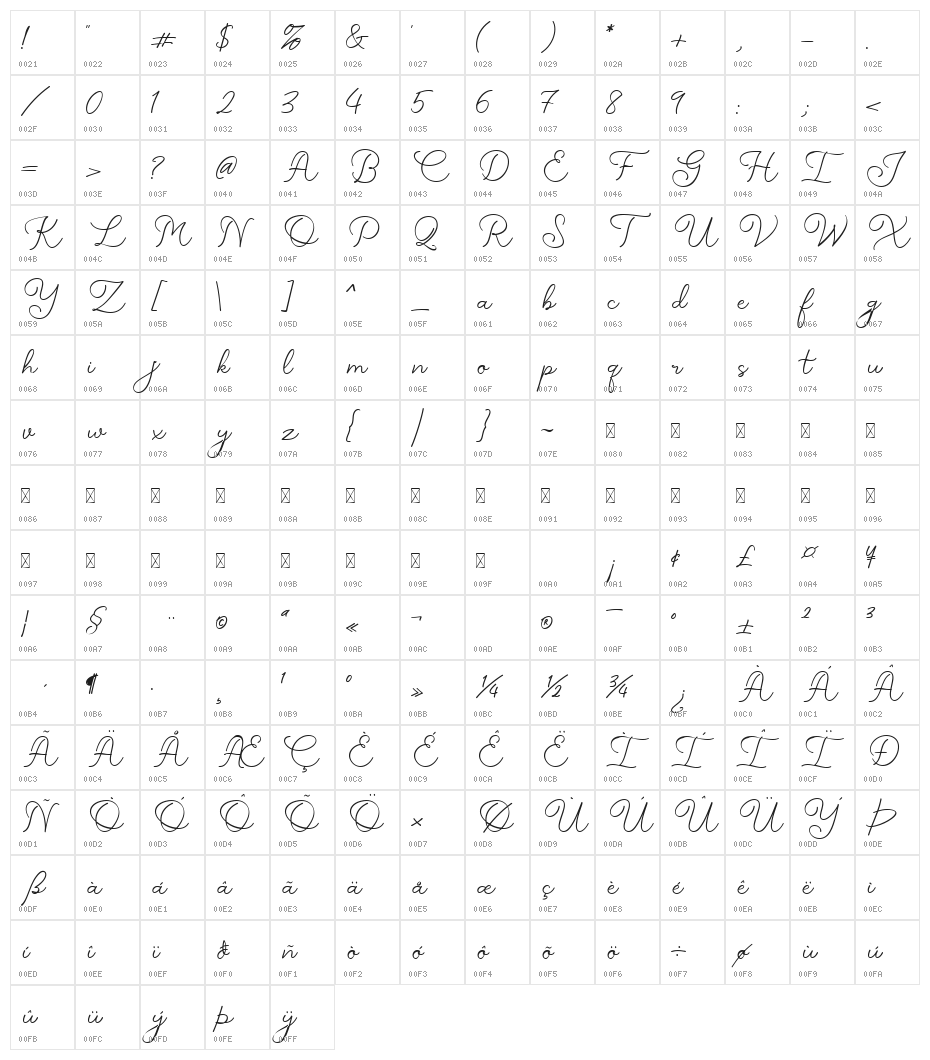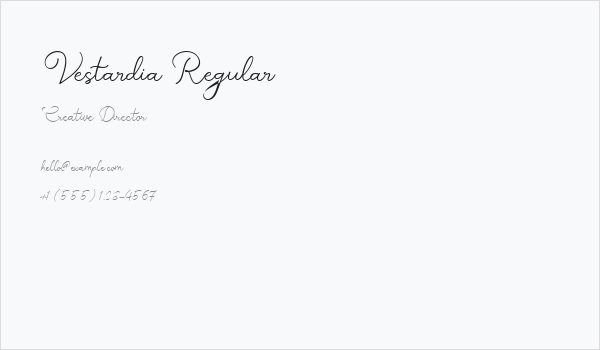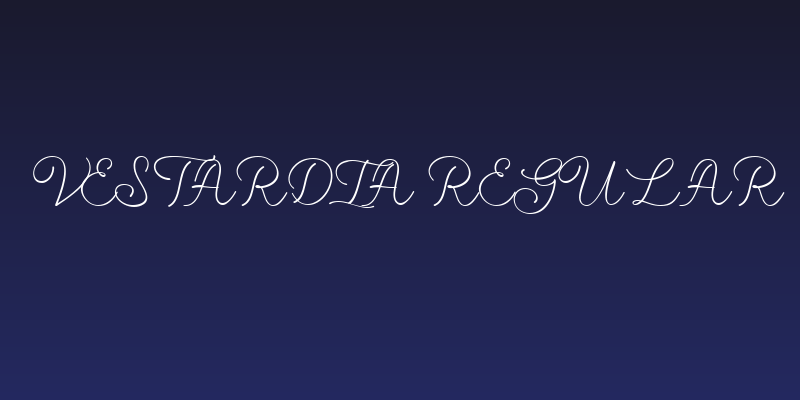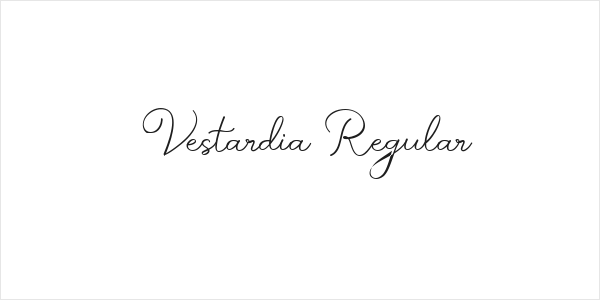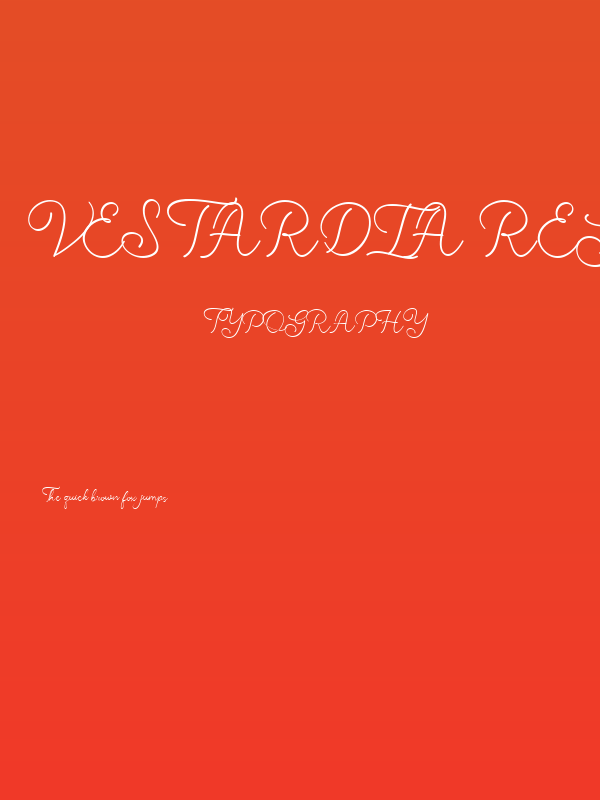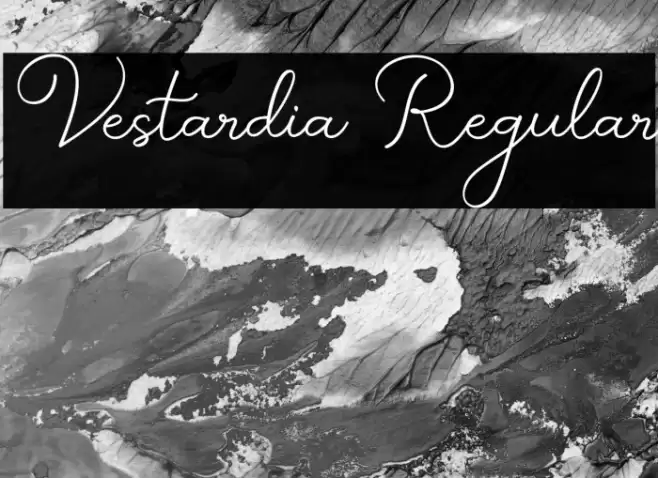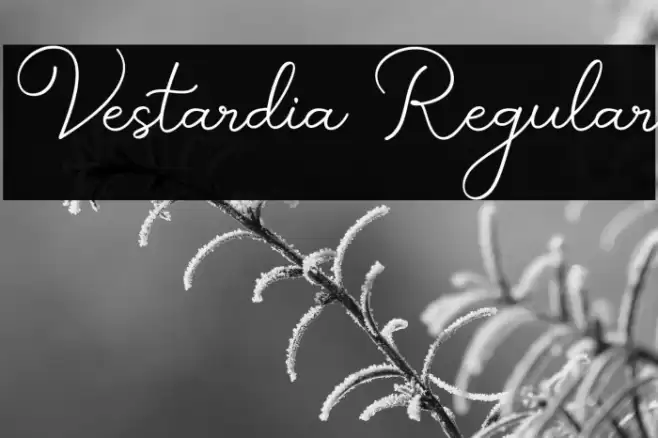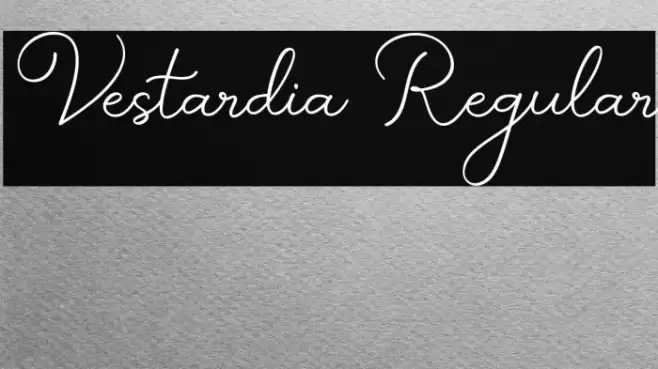
Vestardia Regular Font
Vestardia Regular Description
This font features a modern and elegant design with smooth curves and a clean appearance. The characters are well-balanced, offering a harmonious blend of simplicity and sophistication. The uppercase letters are slightly taller than average, providing a sense of grandeur, while the lowercase letters maintain a consistent flow. The numerals are clear and easy to read, making them suitable for various applications. Special characters are designed with the same attention to detail, ensuring they complement the overall style. The font's versatility makes it ideal for both digital and print media.
| Proposed Projects | Ideal for branding, editorial design, websites, and advertising materials. |